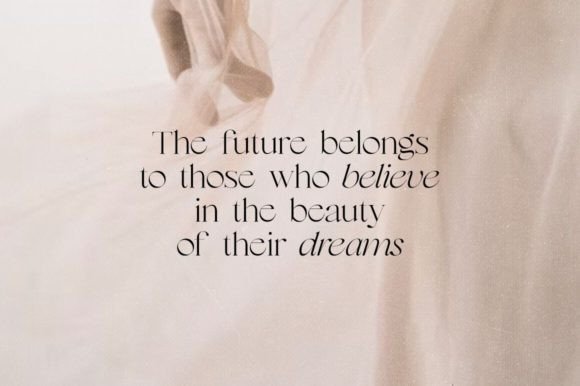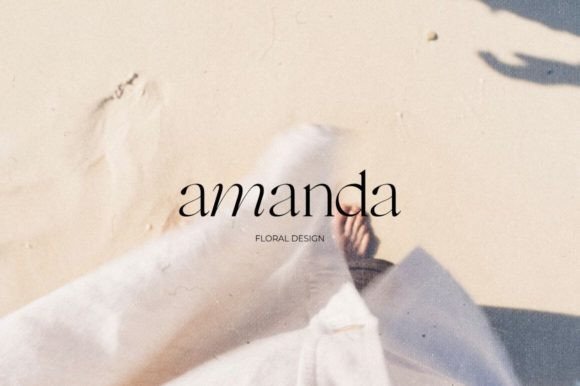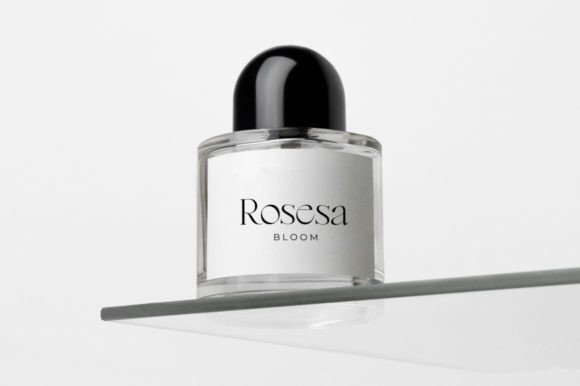
Introduction to Selofier Font
As you sit at your desk, surrounded by scraps of paper, half-finished projects, and an endless stream of design inspiration, you finally find the perfect idea. The words flow effortlessly, and the vision begins to take shape. But, what truly brings your creative project to life is the perfect font. A well-chosen font can elevate your design from good to great, making it stand out in a crowded digital landscape.
That’s where the Selofier Font comes in – a beautiful, authentic serif family that combines elegance and contemporary flair. This high-quality font is designed to help you create stunning visuals that leave a lasting impression. Whether you’re working on a luxury logo, a high-end magazine, or a special occasion invitation, Selofier Font is the perfect design resource to bring your ideas to life.
With its transparent background and sleek, sophisticated design, Selofier Font is a free download that’s sure to become a staple in your design arsenal. As a designer, you know the value of having access to high-quality, versatile fonts that can help you take your creative projects to the next level.
Key Features of Selofier Font
- High-quality, professional design suitable for various creative projects, including graphic design, digital art, and more.
- Unique, handcrafted design with a distinctive aesthetic, making it an excellent choice for designers looking to add a touch of personality to their work.
Honest Review: Selofier Font
I recently stumbled upon the Selofier Font while searching for a reliable design resource for a creative project. I was excited to give it a try, and here’s my honest review.
- ✨ High-quality typography: The font’s design is clean, modern, and visually appealing.
- ⚠️ Limited font weights: The font only comes in a few weights, which might limit its usability in certain design situations.
- ⚠️ Not ideal for small text: The font’s design makes it not suitable for small text sizes, as it can become difficult to read.
Overall, I’m impressed with the Selofier Font. While it has its limitations, it’s a great resource for designers looking for a high-quality, modern font. I would definitely recommend it for creative projects that require a clean and sophisticated typography.
Common Use Cases for Selofier Font
The Selofier Font is perfect for a variety of creative projects, including brochures, flyers, posters, and social media graphics. Its unique design makes it an ideal choice for brands looking to stand out from the crowd.